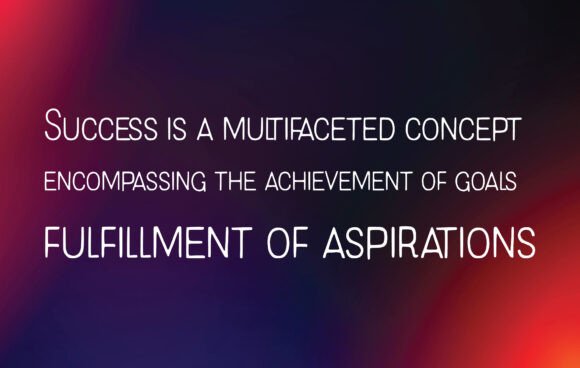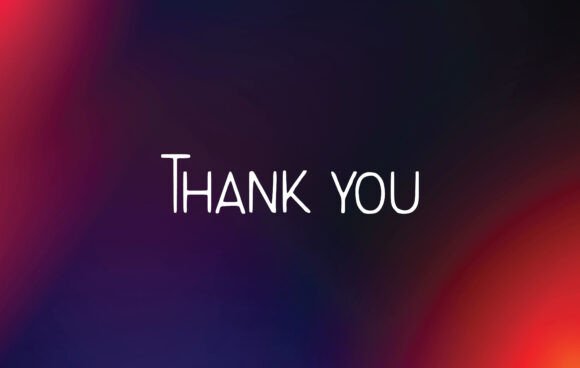
Caleb Font: Elevate Your Creative Projects with a Lovely Handwritten Style
Are you a designer, crafty enthusiast, or simply someone who appreciates beautiful typography? Look no further than the Caleb Font, a stunning handwritten font that can take your creative ideas to new heights. With its unique and elegant style, Caleb is the perfect choice for creating eye-catching logos, branding, and quotes that will leave a lasting impression.
Handwritten fonts have a way of adding a personal touch to any design project. They evoke a sense of warmth, friendliness, and approachability that can be difficult to achieve with more traditional fonts. The Caleb Font is no exception, with its flowing lines, delicate curves, and charming imperfections that give it a distinctly human feel.
What Makes Caleb Font Stand Out
So, what sets the Caleb Font apart from other handwritten fonts on the market? Here are just a few of its standout features:
- Unique and elegant style: Caleb’s distinctive lettering style is both beautiful and versatile, making it suitable for a wide range of design applications.
- Highly legible: Despite its handwritten nature, the Caleb Font is remarkably easy to read, even at small sizes.
- Extensive character set: With a comprehensive range of characters, including uppercase and lowercase letters, numbers, and punctuation marks, Caleb has everything you need to create stunning text-based designs.
Whether you’re a professional designer or a crafty enthusiast, the Caleb Font is an excellent addition to your toolkit. Here are just a few ways you can use Caleb to elevate your creative projects:
- Logo design: Create a memorable and eye-catching logo for your business or brand with the Caleb Font.
- Branding and packaging: Use Caleb to add a touch of personality to your branding and packaging materials, such as business cards, brochures, and product labels.
- Quotes and posters: Add a dash of elegance to your quotes and posters with the Caleb Font, perfect for social media graphics, wall art, or inspirational prints.
- Handmade crafts: Use Caleb to create beautiful, hand-stamped designs on your handmade crafts, such as journals, cards, and gift tags.
Tips for Using the Caleb Font
To get the most out of the Caleb Font, here are a few tips to keep in mind:
- Experiment with font sizes: Caleb looks great at a range of font sizes, from large headings to smaller body text.
- Play with color: The Caleb Font comes in a range of colors, so don’t be afraid to experiment and find the perfect hue for your design.
- Mix and match: Combine Caleb with other fonts to create a unique and visually interesting design.
In conclusion, the Caleb Font is a beautiful and versatile handwritten font that can add a touch of elegance and sophistication to any design project. With its unique style, high legibility, and extensive character set, Caleb is the perfect choice for designers, crafters, and anyone looking to create stunning text-based designs. So why wait? Download the Caleb Font today and start elevating your creative projects to new heights!